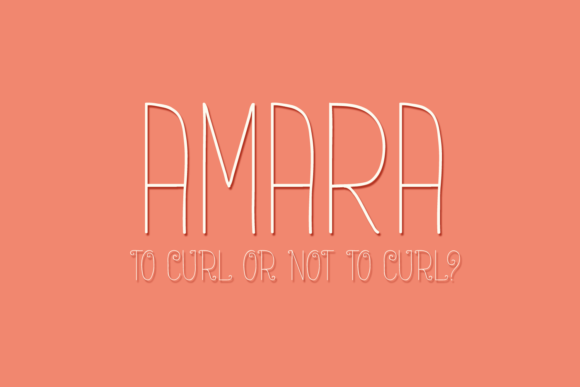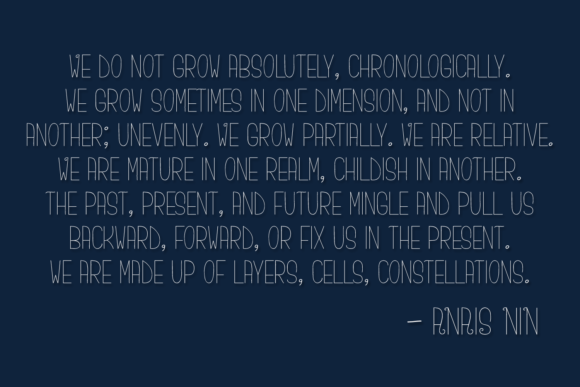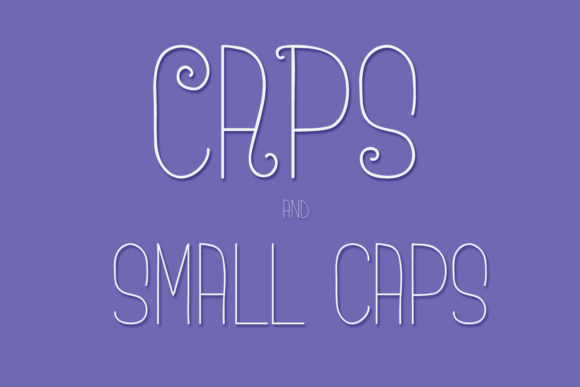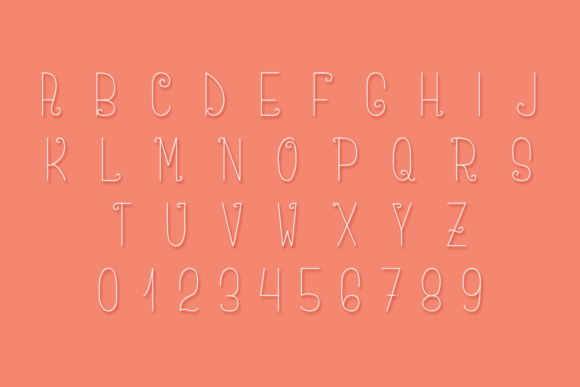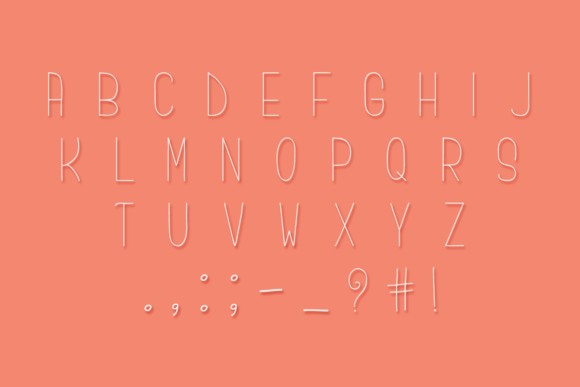
Introducing Amara Font: Elevate Your Design with Elegance and Boldness
Amara Font is a stunning, thin yet bold typeface that can instantly transform any design project into a standout masterpiece. With its unique blend of elegance and confidence, Amara is the perfect choice for designers and crafters looking to make a statement. In this article, we’ll explore the features, benefits, and uses of Amara Font, and why it’s a must-have for any creative professional.
The Characteristics of Amara Font
Amara Font is a sans-serif typeface with a distinctive thin and bold feel. Its sleek lines, precise curves, and carefully crafted letterforms make it a versatile font suitable for a wide range of design applications. Whether you’re working on a logo, branding, packaging, or digital project, Amara’s clean and modern aesthetic is sure to impress.
What Makes Amara Font Stand Out?
- Unique Blend of Thin and Bold: Amara Font’s contrasting thin and bold styles create a visually appealing effect that’s both elegant and attention-grabbing.
- High Legibility: Amara’s carefully designed letterforms ensure excellent readability, even at small font sizes.
- Versatility: Amara Font can be used for a wide range of design projects, from logos and branding to packaging, posters, and digital media.
Benefits of Using Amara Font
Amara Font offers numerous benefits for designers and crafters, including:
- Instant Recognition: Amara’s bold and elegant design ensures instant recognition and recall, making it perfect for logos, branding, and advertising.
- Professional Look and Feel: Amara Font’s clean and modern aesthetic gives any design project a professional look and feel, making it ideal for businesses, organizations, and individuals.
Who Can Benefit from Amara Font?
Amara Font is an excellent choice for:
- Graphic Designers: Amara Font is perfect for graphic designers looking to create stunning logos, branding, and marketing materials.
- Crafters: Amara Font is ideal for crafters who want to add a professional touch to their handmade products, such as jewelry, crafts, and DIY projects.
- Digital Designers: Amara Font is suitable for digital designers working on websites, mobile apps, and social media graphics.
Amara Font is a powerful and elegant typeface that can elevate any design project into a standout masterpiece. With its unique blend of thin and bold styles, high legibility, and versatility, Amara is an excellent choice for designers and crafters looking to make a statement. Whether you’re working on a logo, branding, packaging, or digital project, Amara Font is sure to impress. So why wait? Download Amara Font today and take your designs to the next level!